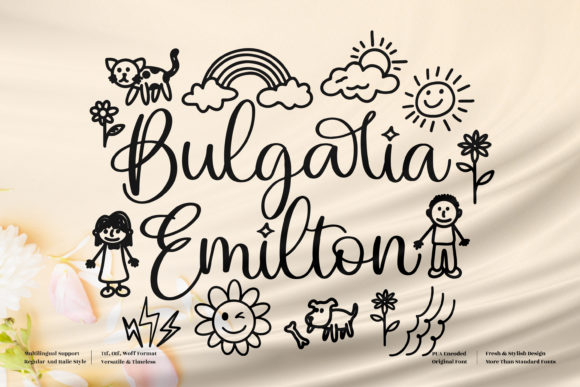
Prepare to be captivated by the exquisite artistry of Bulgaria Emilton, a script font that will ignite your creative spirit and leave an unforgettable impression on your designs.
With its meticulously crafted curves and intricate details, Bulgaria Emilton exudes elegance and sophistication. Each letter dances across the page with a graceful fluidity, inviting you to explore a world of boundless possibilities.
Step into a realm where your words transform into captivating masterpieces. Bulgaria Emilton's versatility knows no bounds, lending its charm to a myriad of projects. Whether you're crafting personal signatures, designing eye-catching logos, or adding a touch of flair to your social media presence, this font will elevate your creations to new heights.
Embrace the art of personalization. Bulgaria Emilton's PUA encoding grants you effortless access to an array of glyphs and swashes, empowering you to unleash your creativity like never before. Express your unique style with every stroke, leaving an indelible mark on your designs.
Don't settle for ordinary fonts. Choose Bulgaria Emilton, the font that will ignite your imagination and captivate your audience. Experience the transformative power of authentic artistry today!